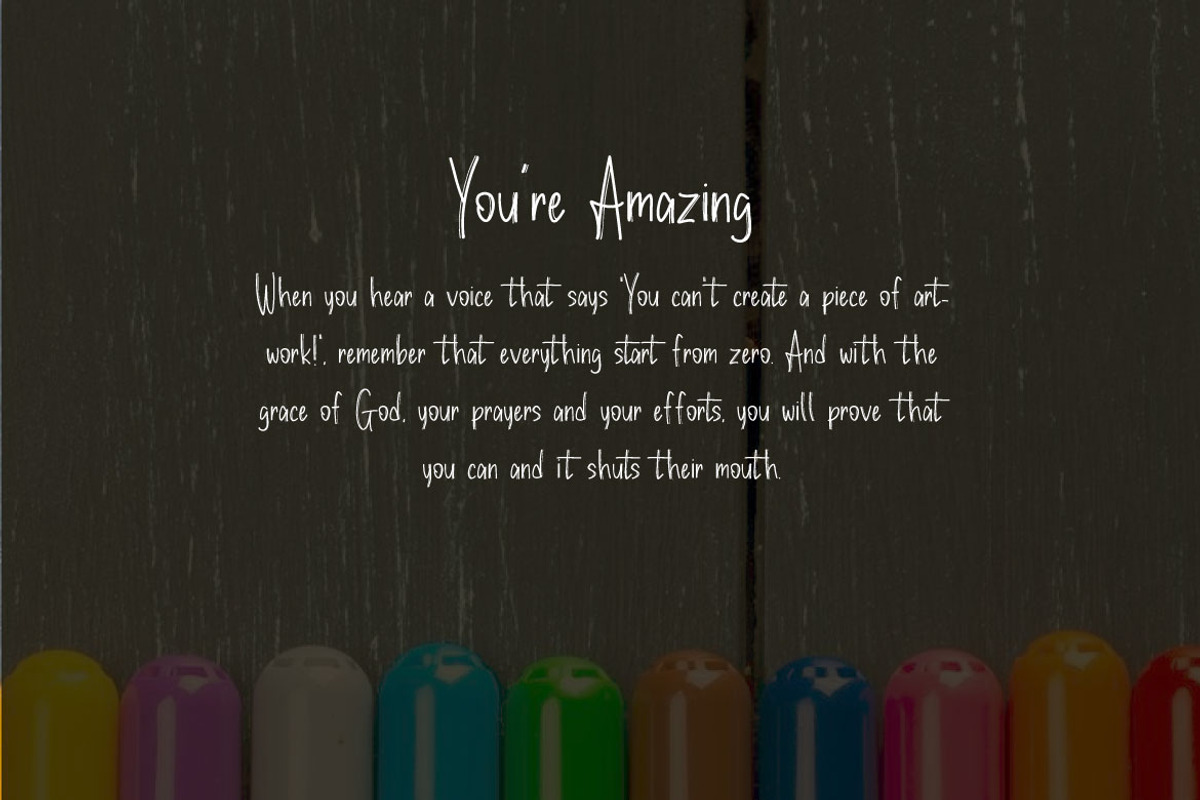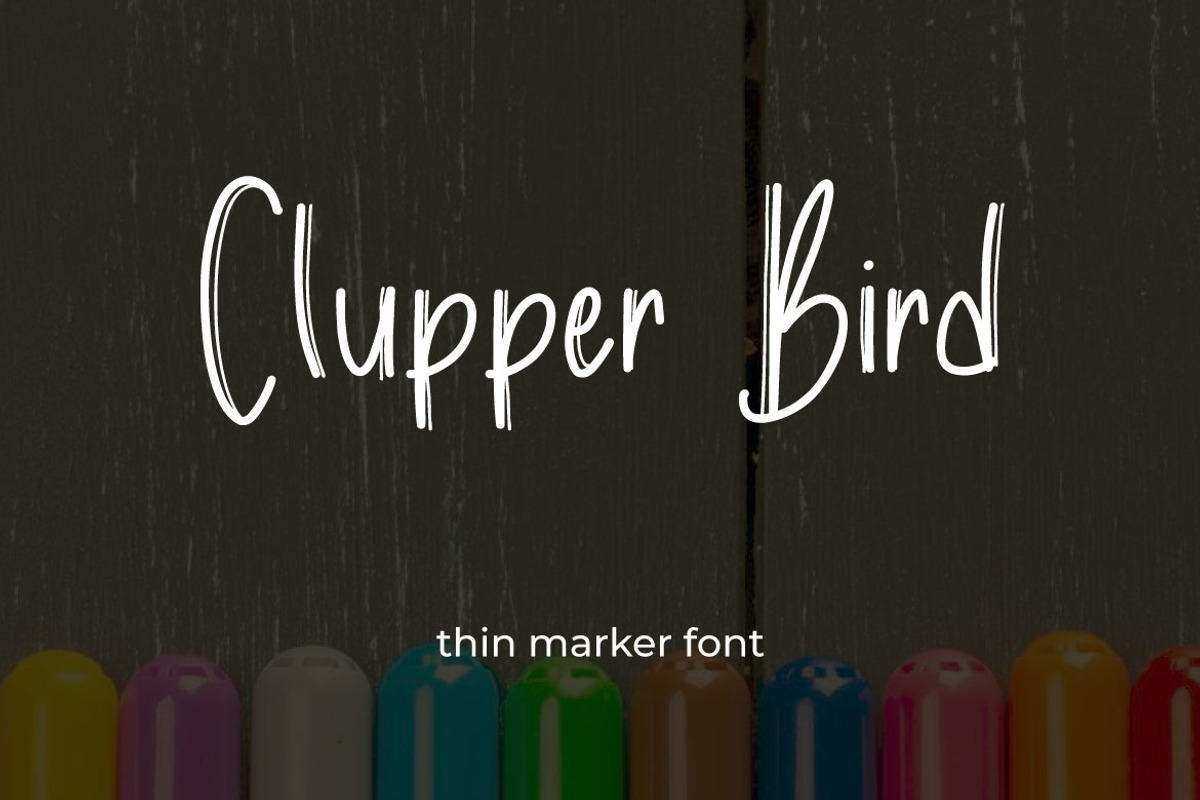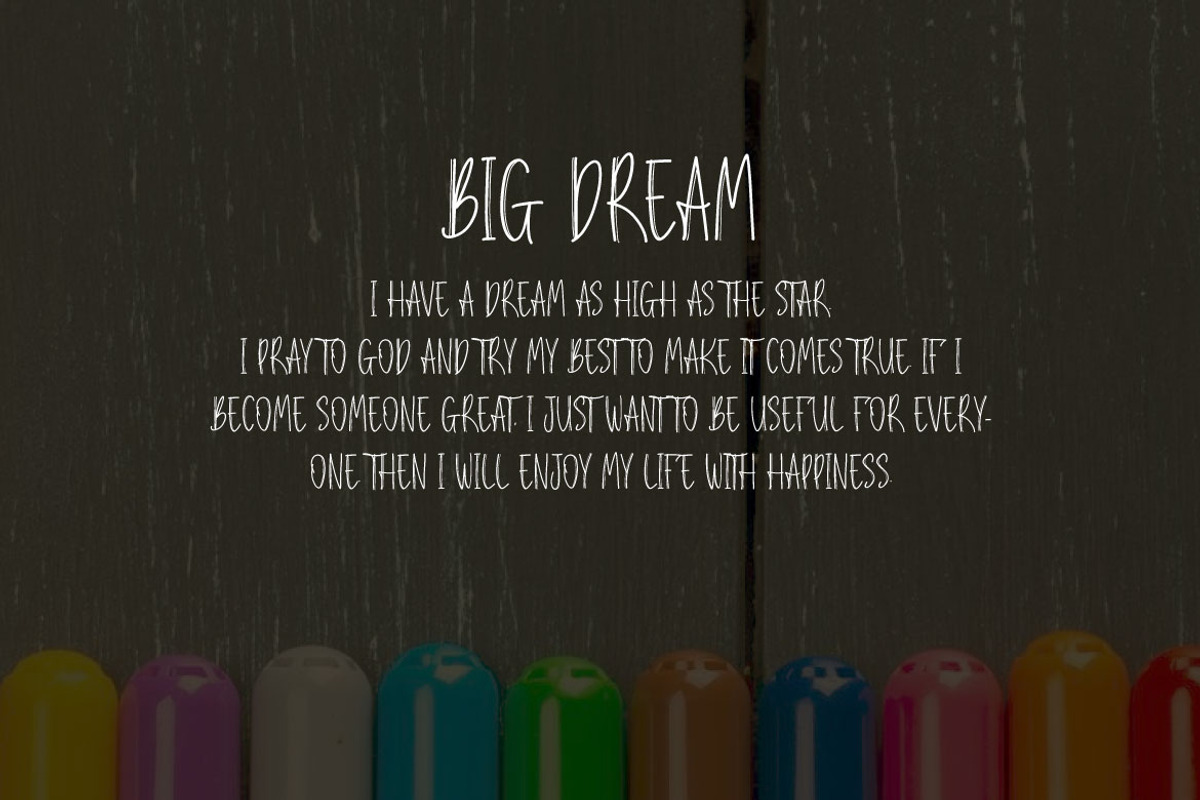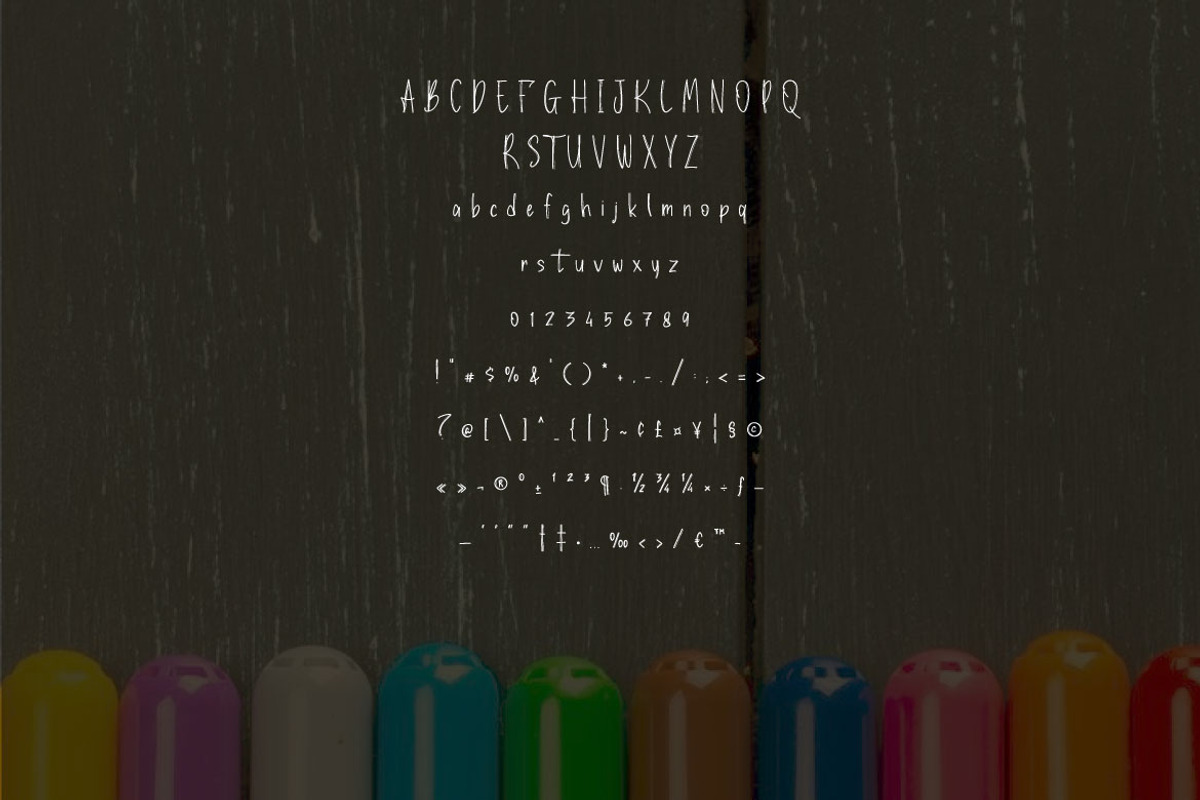
Clupper Bird - Thin Marker Font
Introducing our dynamic and eye-catching Clupper Bird - Thin Marker Font, a perfect blend of boldness and creativity for all your design needs. This versatile typeface mimics the authentic, hand-drawn strokes of a marker, bringing a touch of personality and vibrancy to your projects. Each character is meticulously crafted to replicate the genuine look and feel of marker writing, ensuring an organic and lively appearance. Ideal for headlines, posters, branding, social media graphics, and more. Its striking presence makes your text stand out, whether it's for a playful project or a professional presentation.
Unleash your creativity with the Clupper Bird, and transform your text into a work of art!